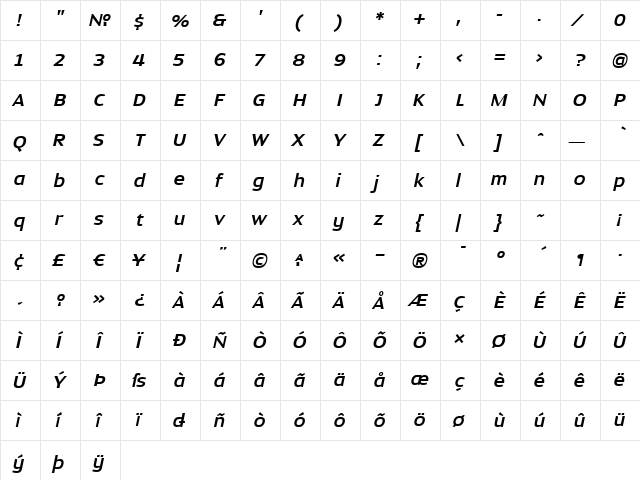
Dynasty Demi Bold Italic
Design Context for Dynasty Demi Bold Typeface
Dynasty Demi Bold is a composed and adaptable typeface that performs quietly and consistently across a wide range of design contexts. The slanted form adds forward momentum and visual energy. Its bold stroke weight gives it real presence on the page.
Pro Tip: Try Dynasty Demi Bold for annotation and caption copy alongside an upright companion — the contrast in angle creates a dynamic but ordered typographic system.